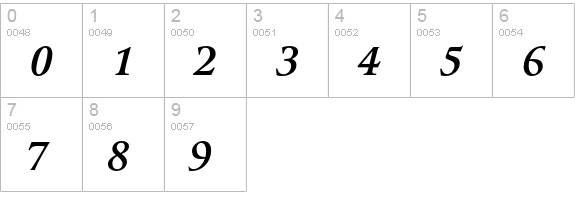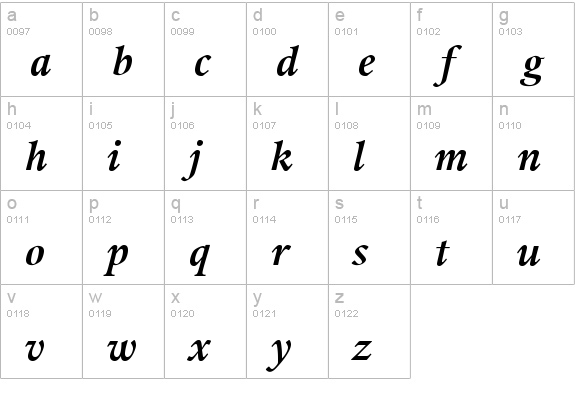
Guardi 76 Bold Italic is a strong, high-contrast, italic variant in the Guardi typeface family \xE2\x80\x94 well suited to headlines, attention-grabbing titles, and strong calls-to-action.
Guardi 76 Bold Italic font is a striking and versatile typeface that combines modernity with a touch of elegance. Its bold and italic design exudes confidence and sophistication, making it a perfect choice for a wide range of design projects. Whether you're creating a sleek logo, eye-catching poster, or stylish branding materials, Guardi 76 Bold Italic will make your text stand out. Best of all, Guardi 76 Bold Italic font is available for free download at FontsMarket.com. This means you can easily access this high-quality font without any cost, allowing you to elevate your design projects without breaking the bank. Don't miss out on the opportunity to enhance your designs with Guardi 76 Bold Italic font - download it today and see the difference it can make!